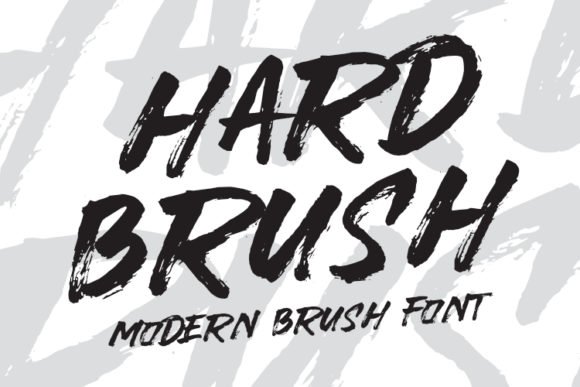
The Brush That Changed Everything
Have you ever been working on a design project, and suddenly, the perfect font pops into your head? For me, it was one of those magical moments when I stumbled upon the Hardbrush Font. Its raw, untamed energy was exactly what I needed to take my design to the next level.
Hardbrush Font is a display font like no other. Its unique blend of brushstrokes and textures adds a touch of personality to any design. Whether you’re working on a branding project, a social media campaign, or a website, this font is sure to bring your vision to life. And the best part? Its versatility makes it perfect for a wide range of designs, from modern and sleek to vintage and rustic.
As a designer, you know how valuable it is to have a font that can keep up with your creativity. The Hardbrush Font is that font. Its unique style and energy will inspire you to push the boundaries of what’s possible, and its ease of use will make it a staple in your design arsenal.
Key Features of Hardbrush Font
- Unique Brush Stroke Effect: Hardbrush Font features a distinctive brush stroke effect that mimics the look of hand-painted or hand-drawn text, adding a touch of personality to any design project.
Designer Review: Hardbrush Font
Overall, I think the Hardbrush Font has some interesting aspects, but it also has some notable limitations.
- The unique brushstroke design gives the font a fun, hand-drawn feel that’s perfect for creative projects.
- The font is highly legible, even at smaller sizes, making it suitable for a wide range of applications.
- The variety of weights and styles allows for a lot of flexibility in design projects.
- The font can look a bit cluttered or messy if not used carefully, which may not be ideal for more formal or professional projects.
- The brushstroke design may not be suitable for small text or body copy, as it can be difficult to read.
- The font may not be suitable for projects that require a high level of precision or technical accuracy.
Overall, I think the Hardbrush Font is a great choice for creative projects that need a fun, playful touch. However, it may not be the best fit for more formal or technical projects. With careful use and attention to design, this font can add a unique and engaging element to a design project.
Use the Hardbrush Font to add a unique, handwritten touch to your designs.
It’s perfect for creating invitations, signage, and other graphic elements that require a personal touch.